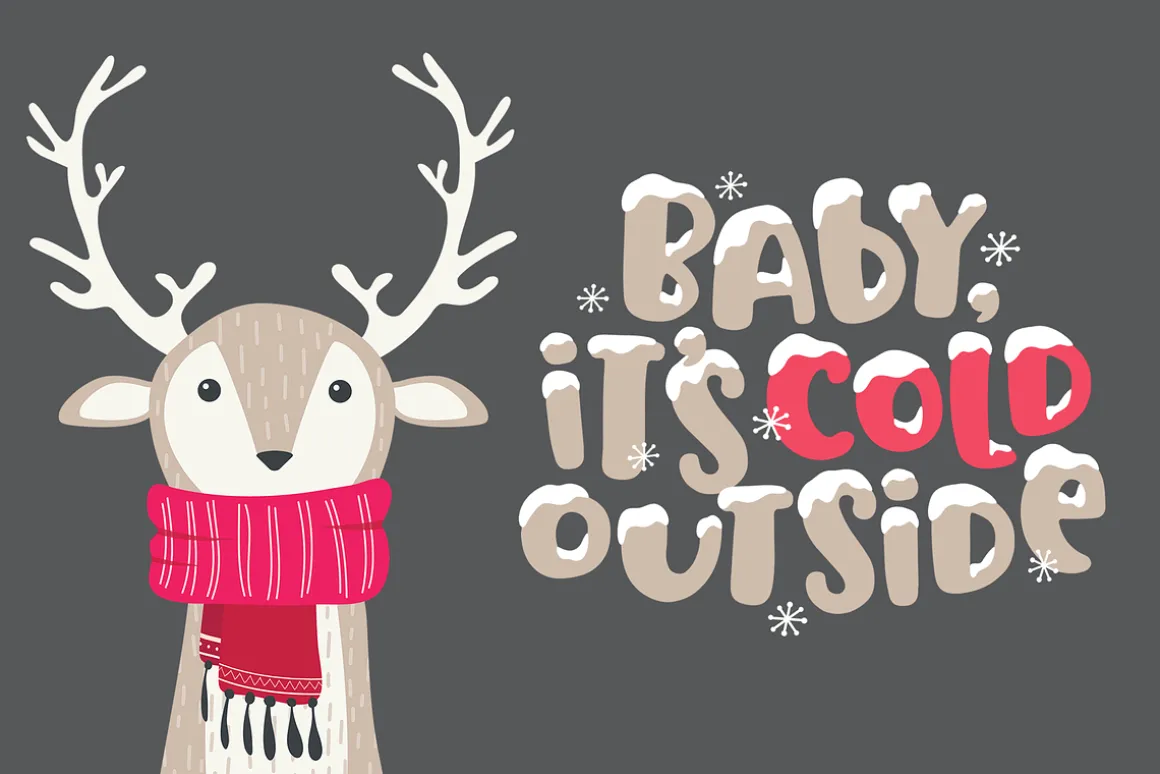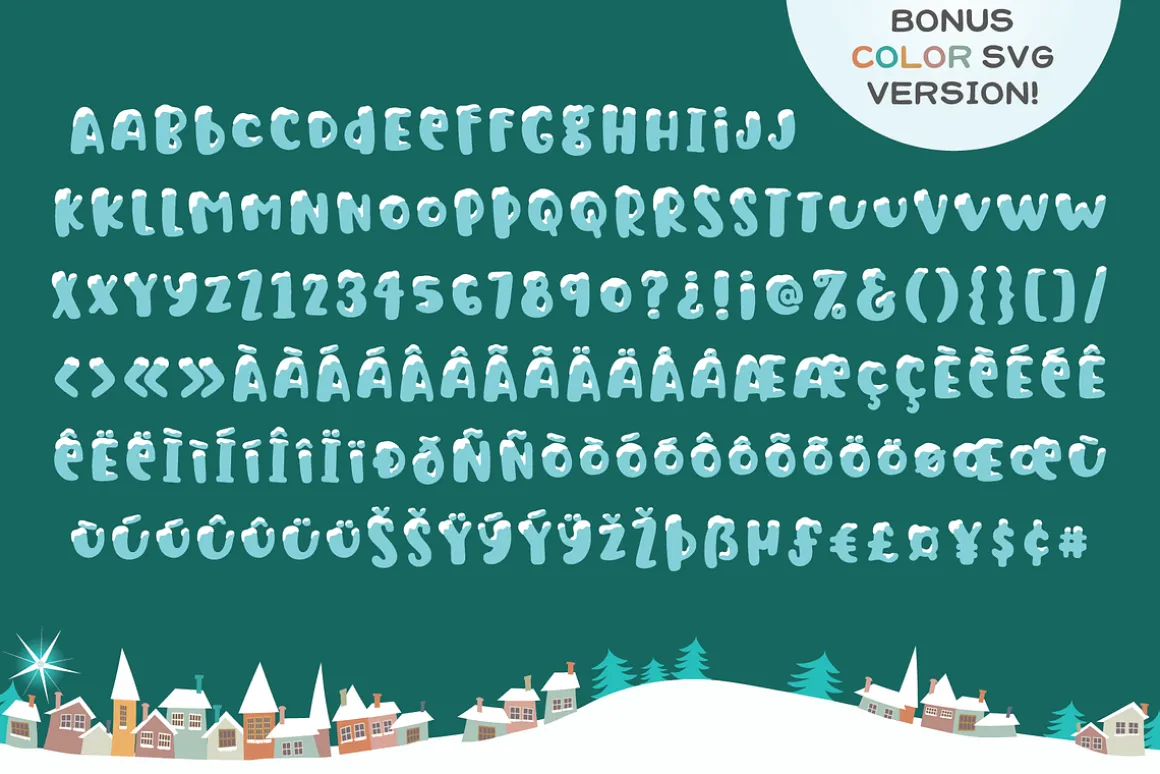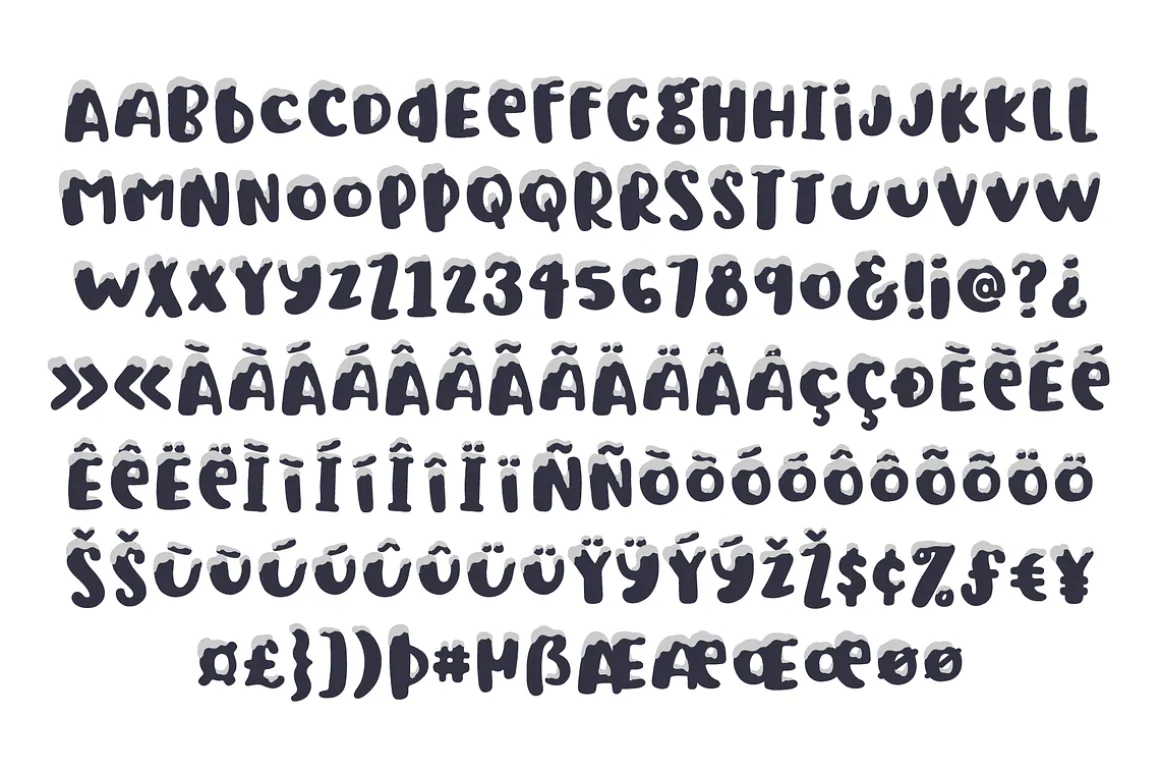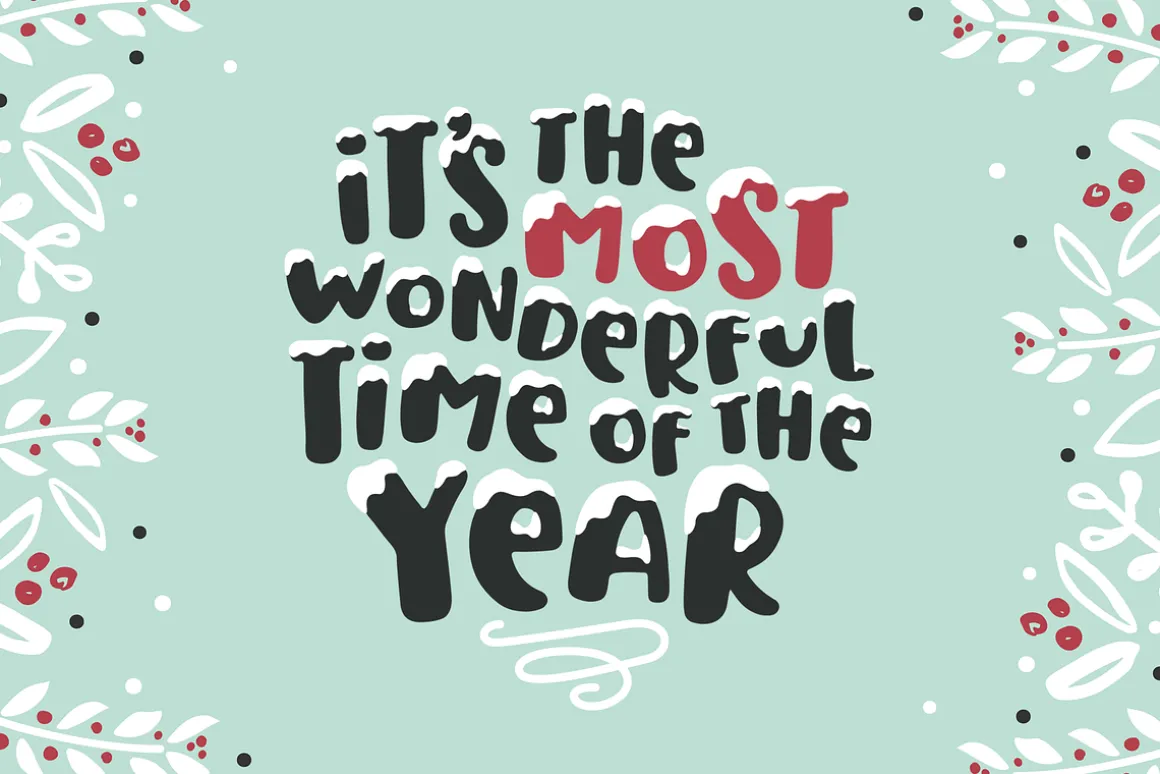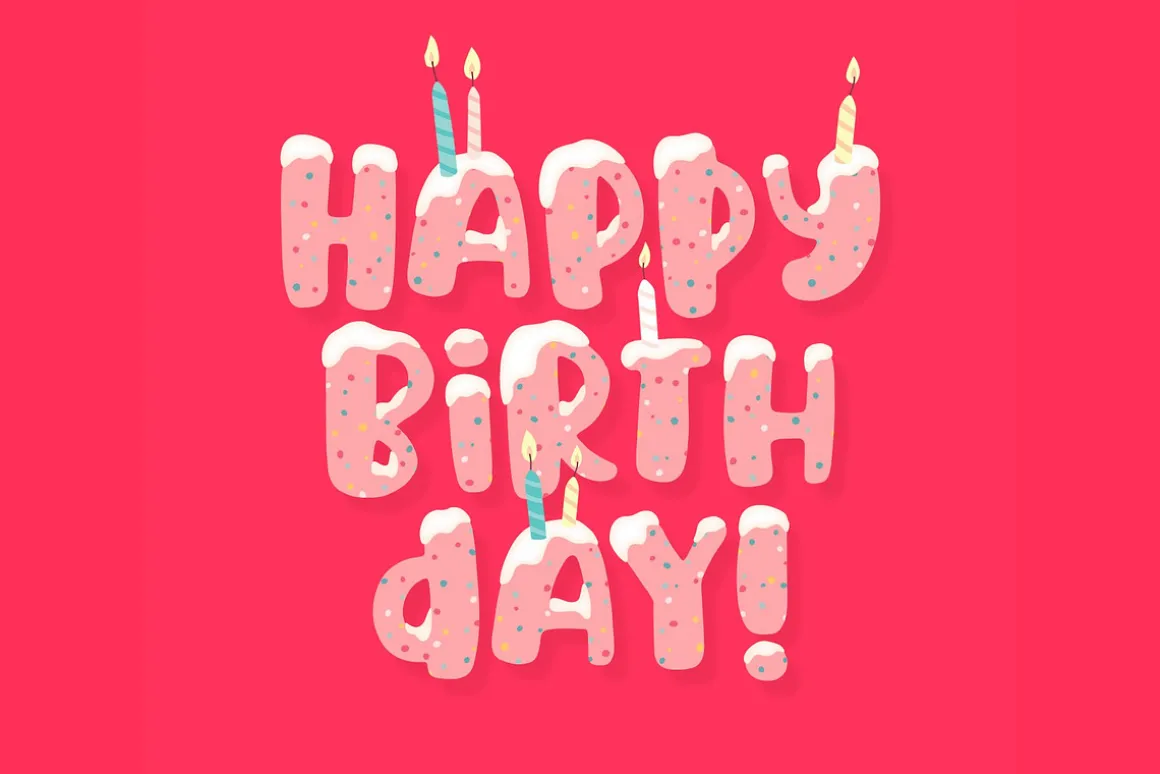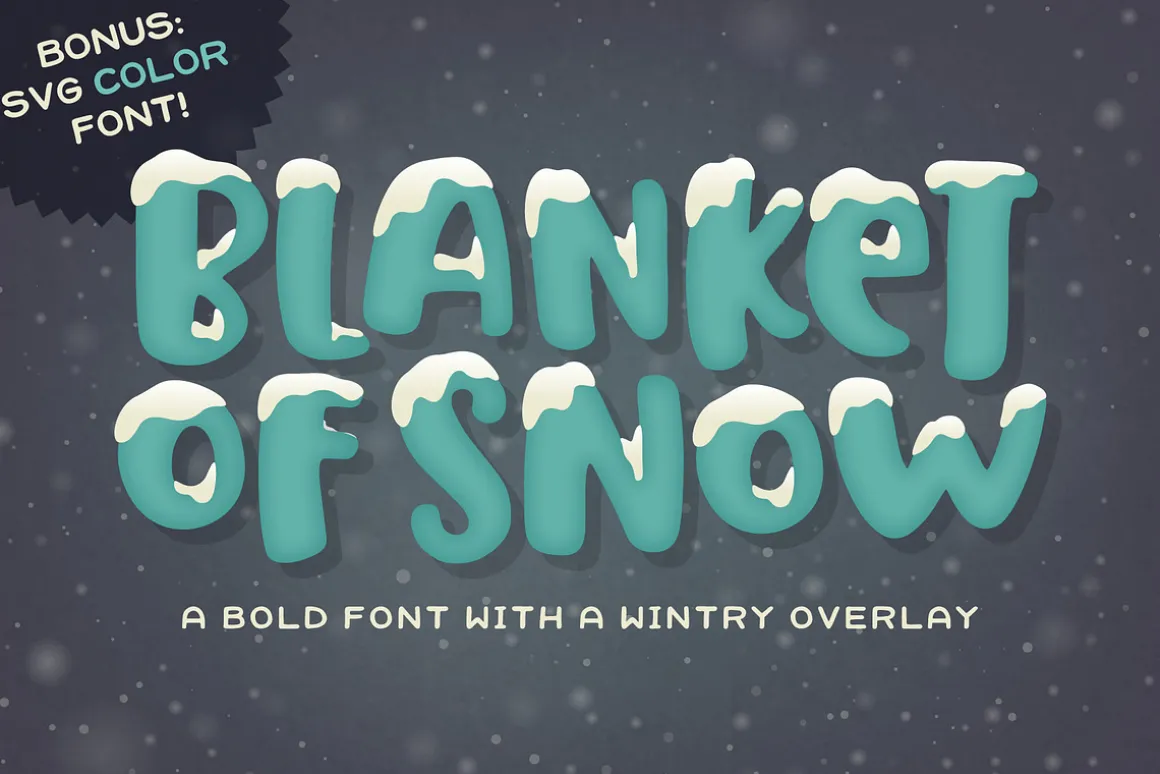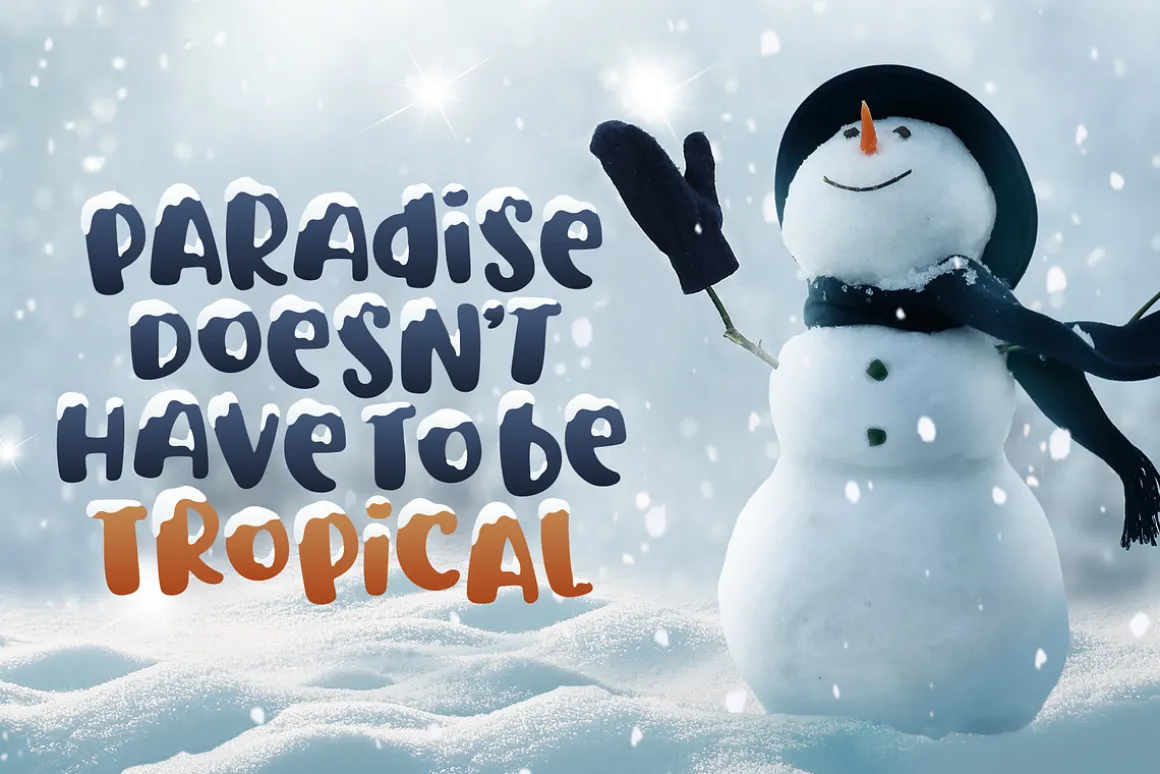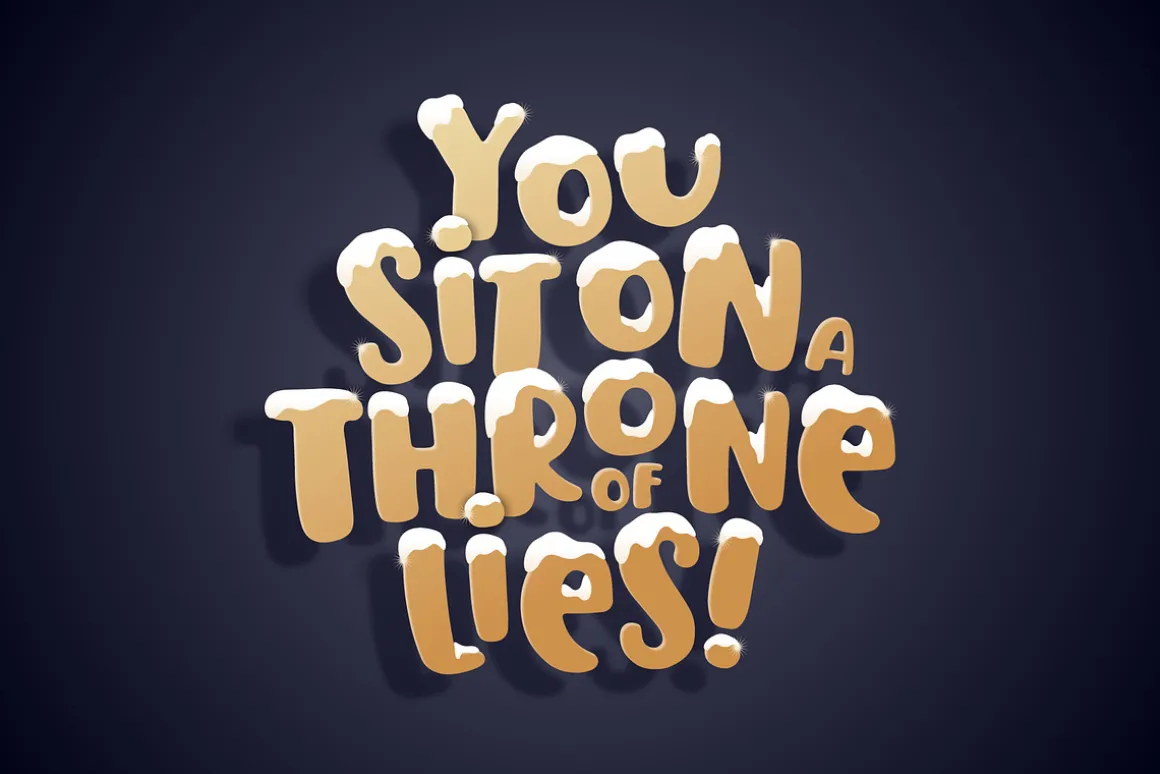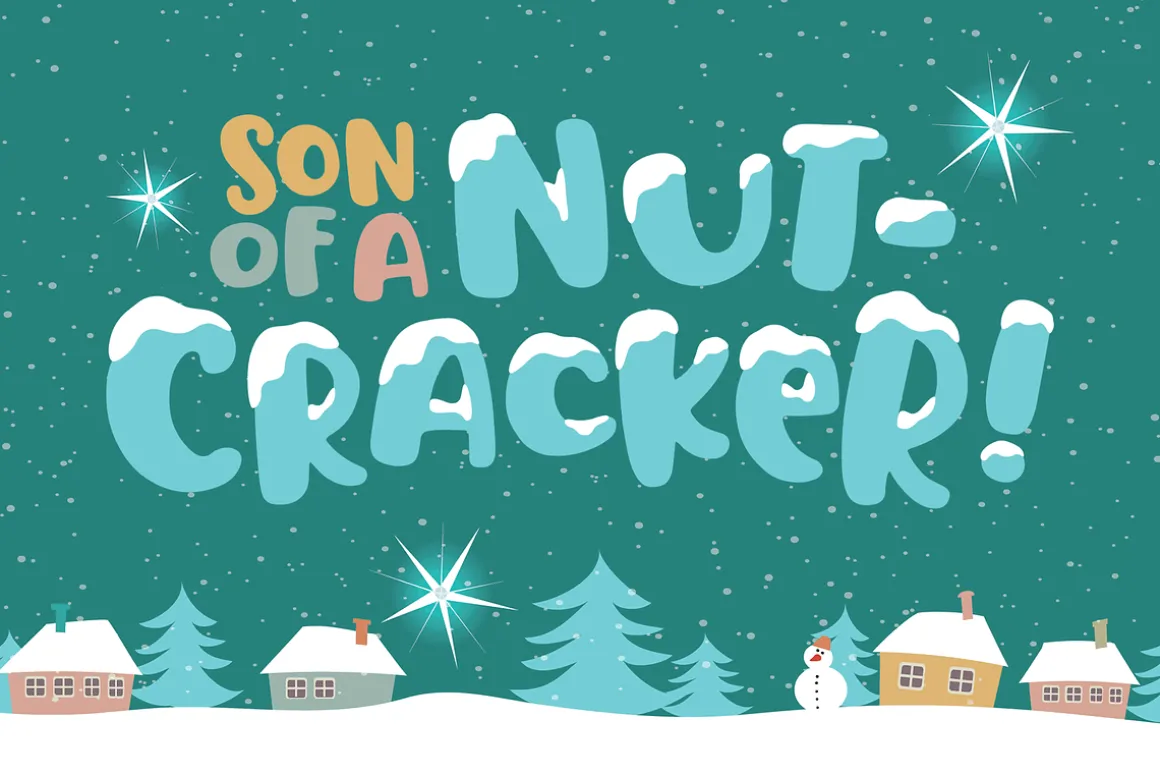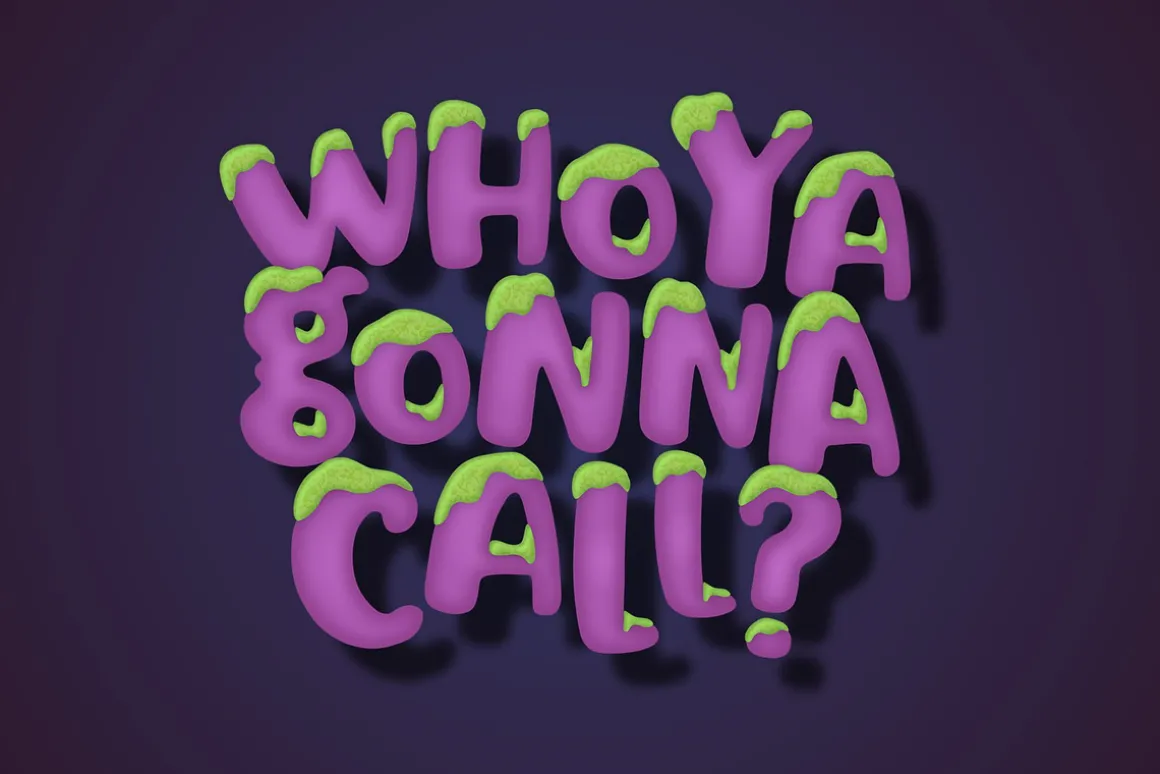
Blanket of Snow is a wide, bold font packed with personality. It can be used alone, or with the overlay version placed on top for a snow-capped effect. Also included is a bonus color SVG version. OpenType-SVG fonts can be used in programs like Photoshop CC 2017+, Illustrator CC 2018+, or InDesign CC 2019+.